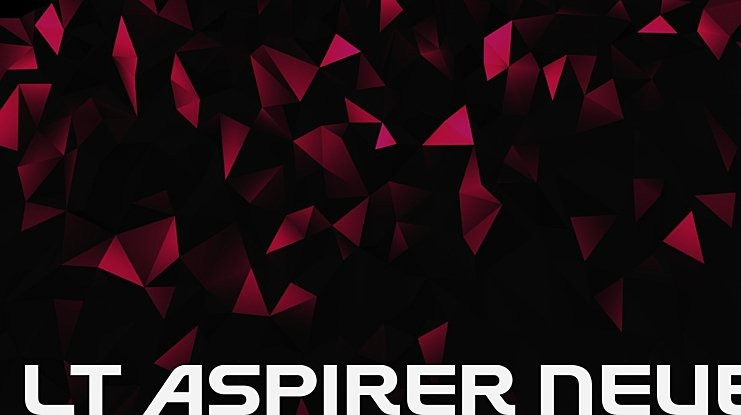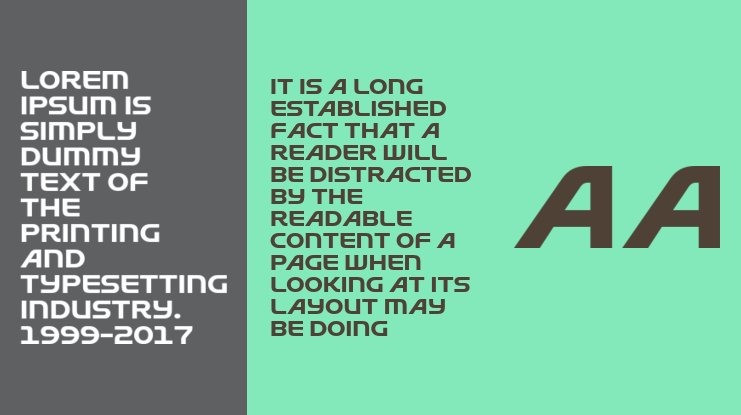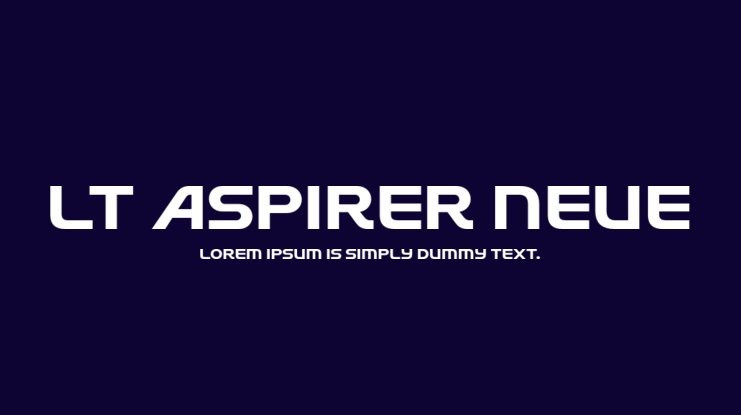
LT Aspirer Neue Font, This font was created for all forms of business and branding such as clothing, logos, skate boards and others according to your needs.
LT Aspirer Neue Font
| Designer Name: | Daniel Lyons |
| Classification: | Display Fonts, Sans Serif Fonts |